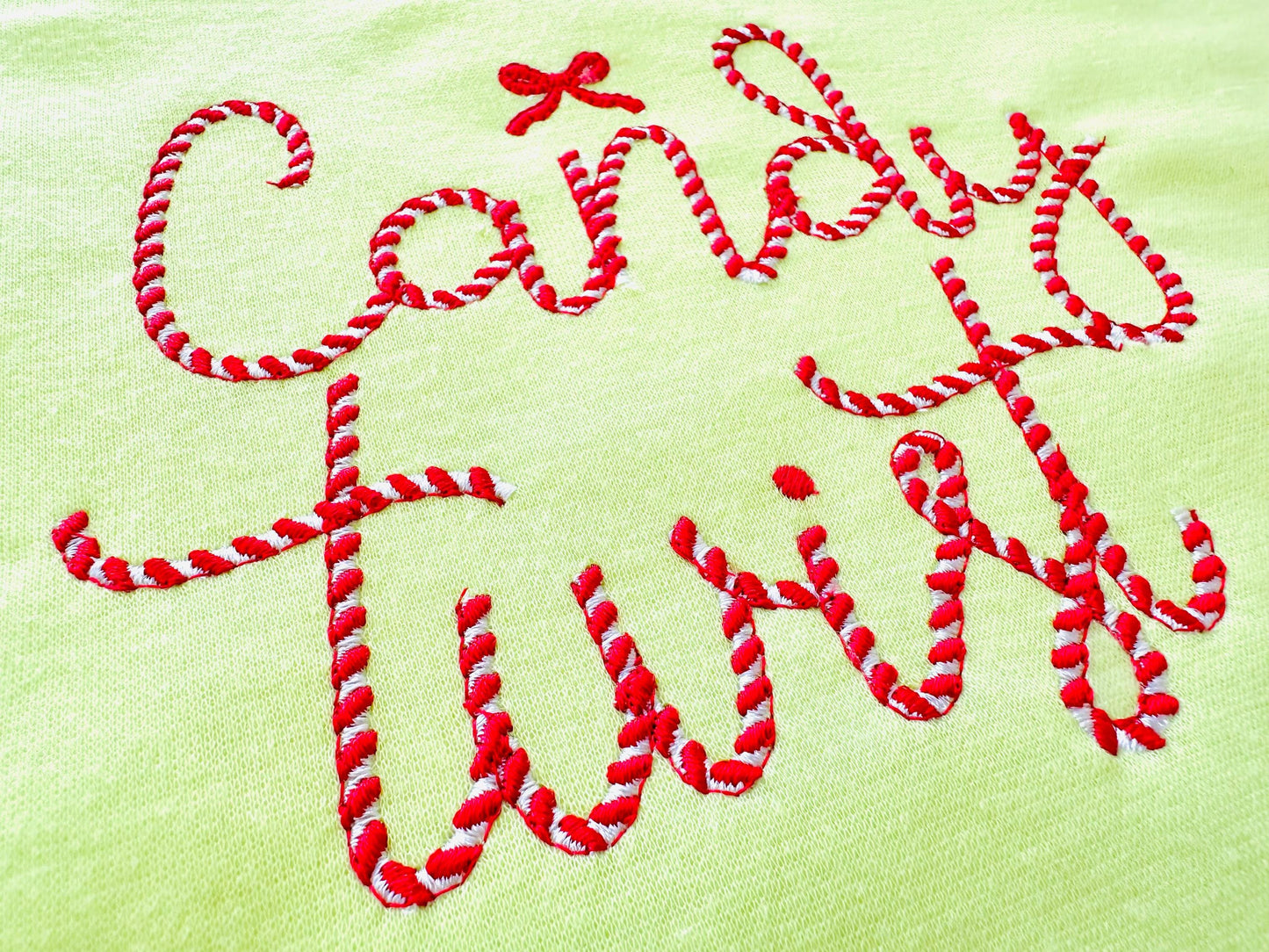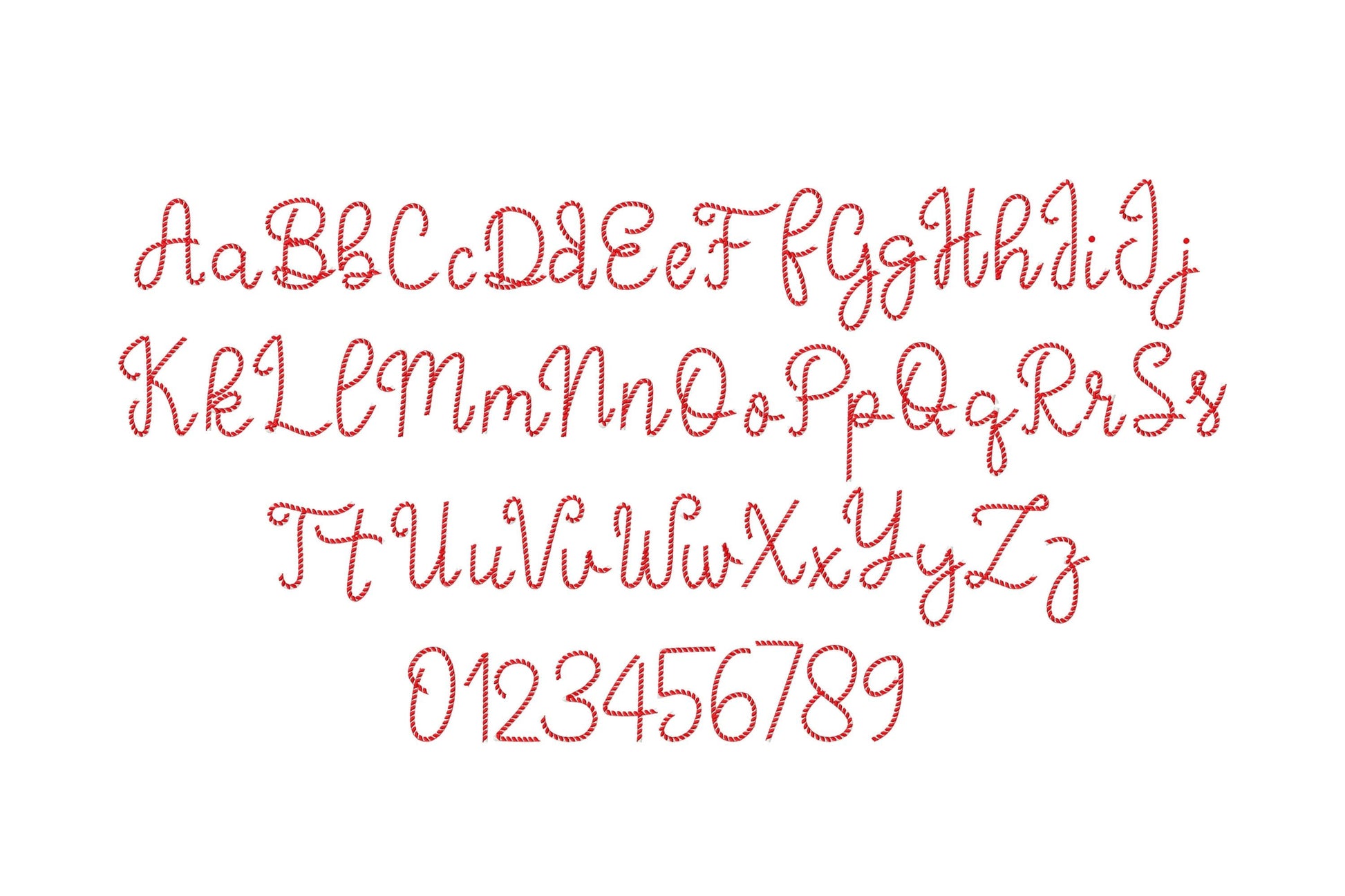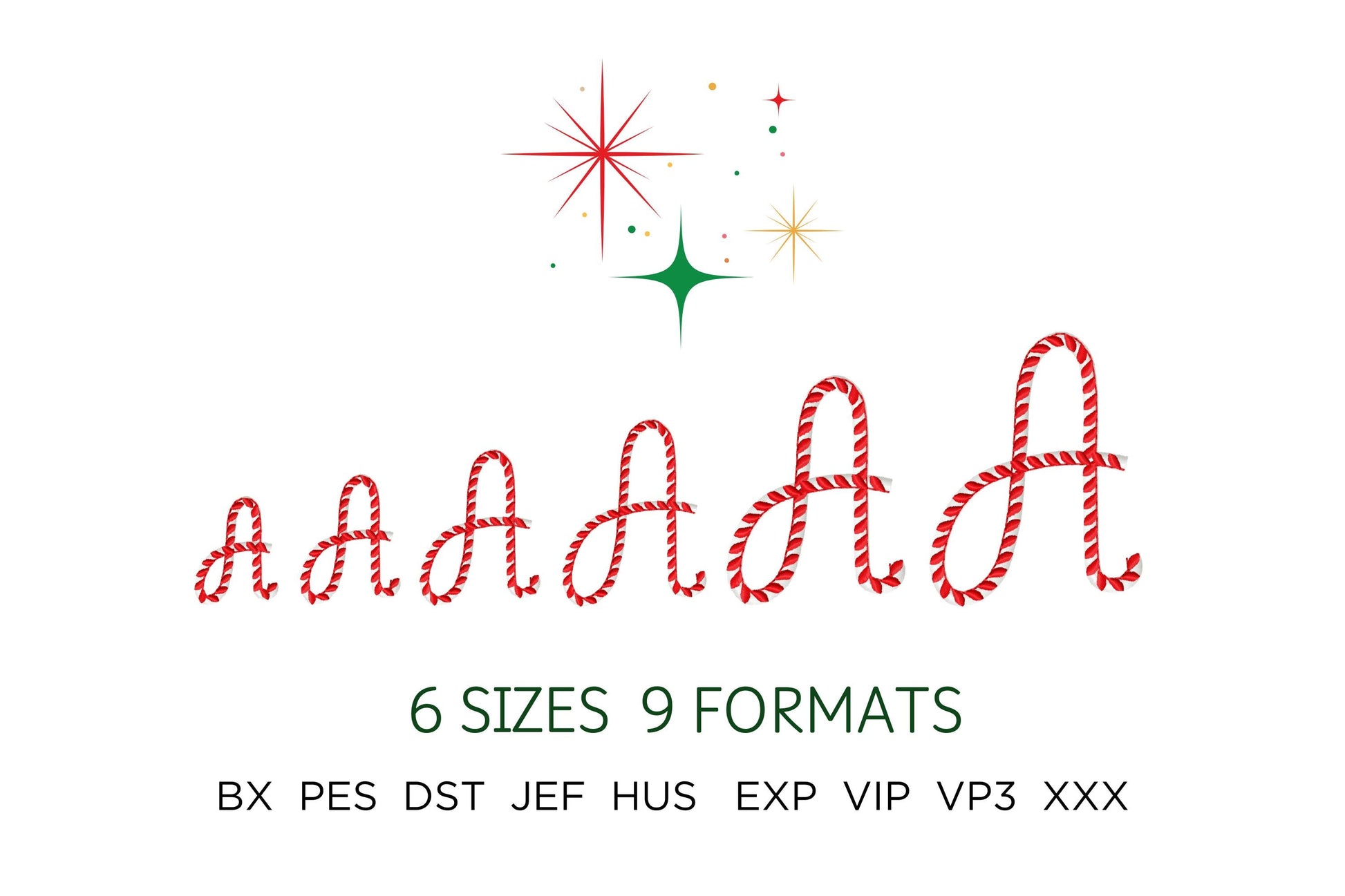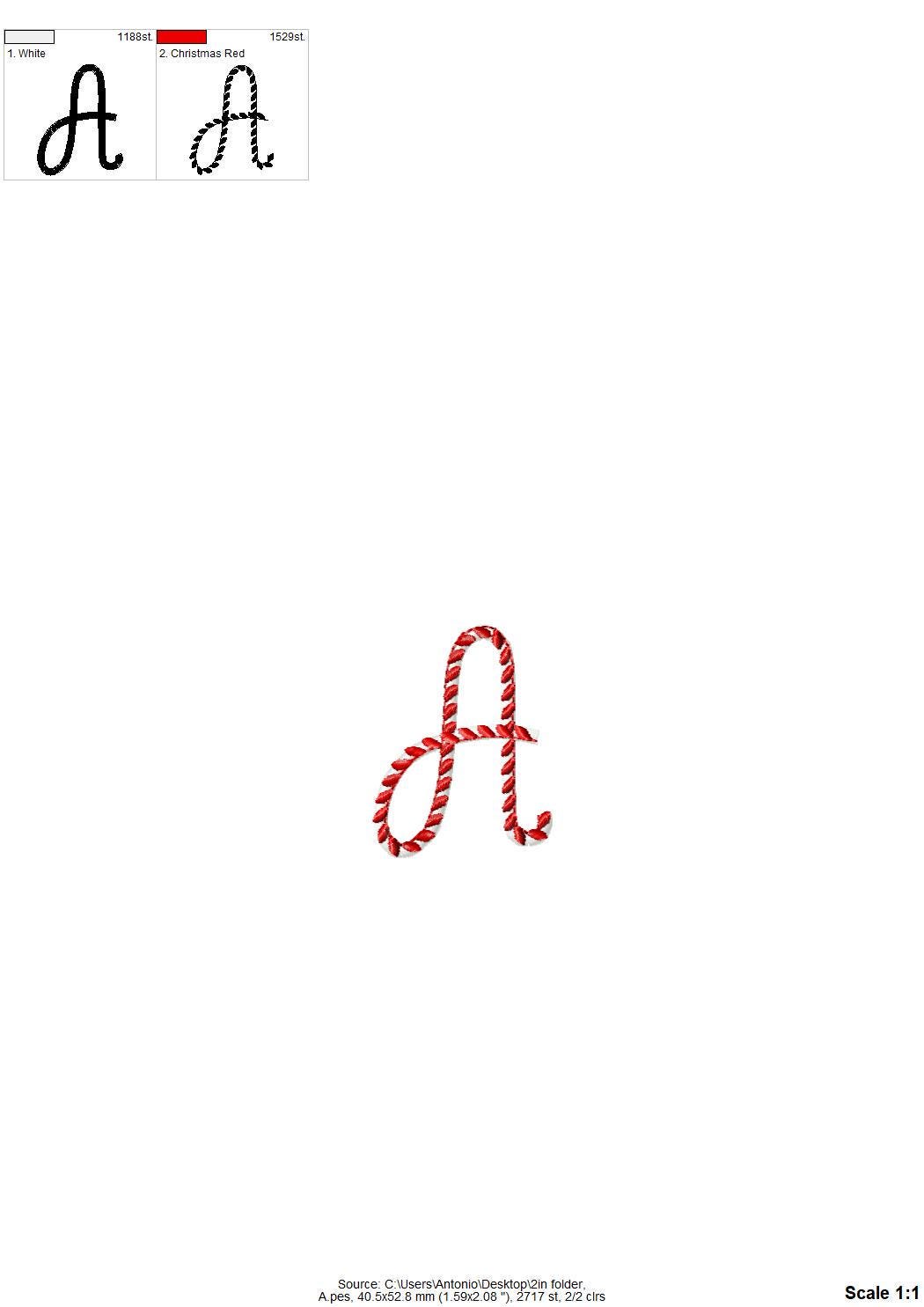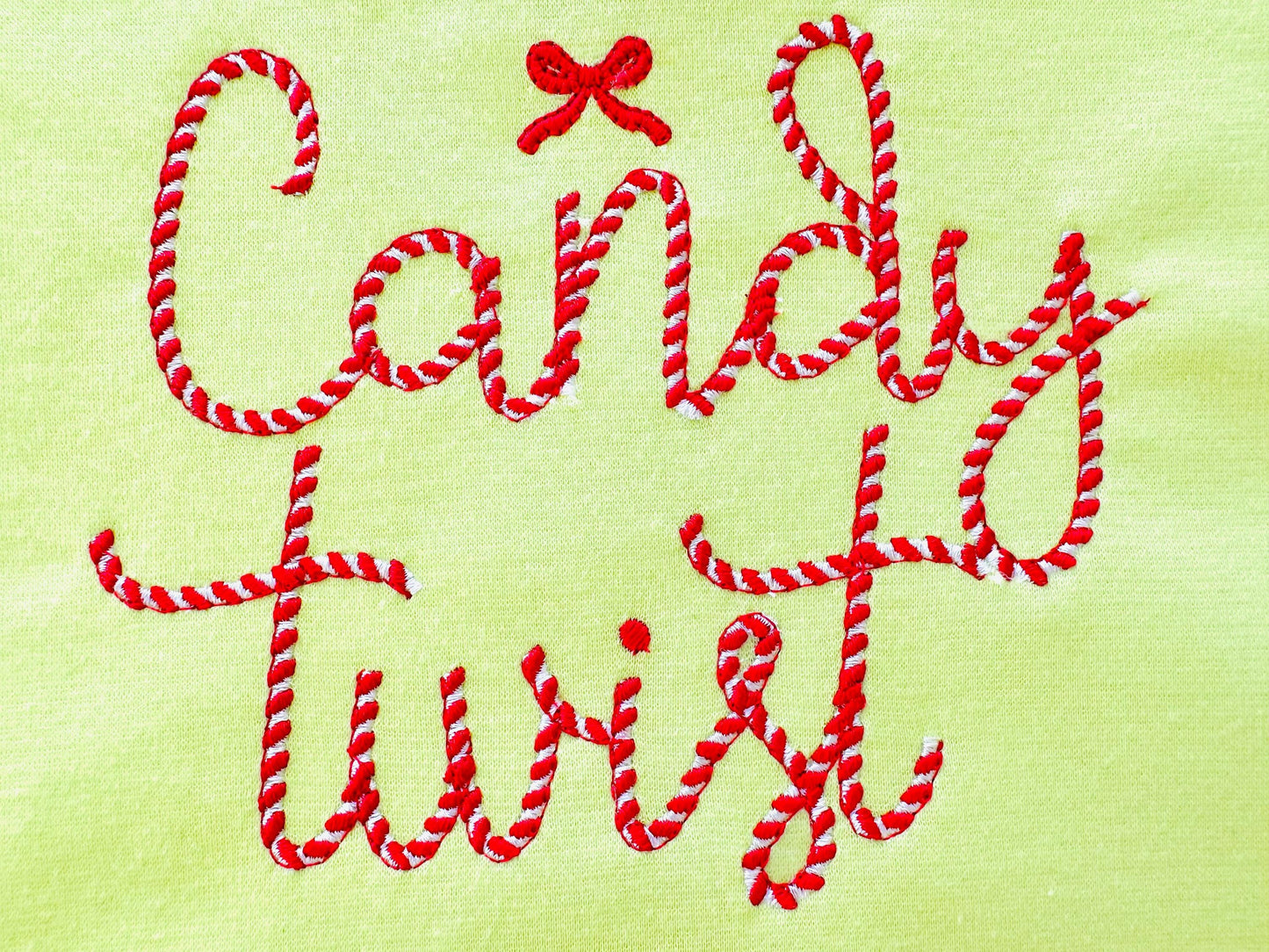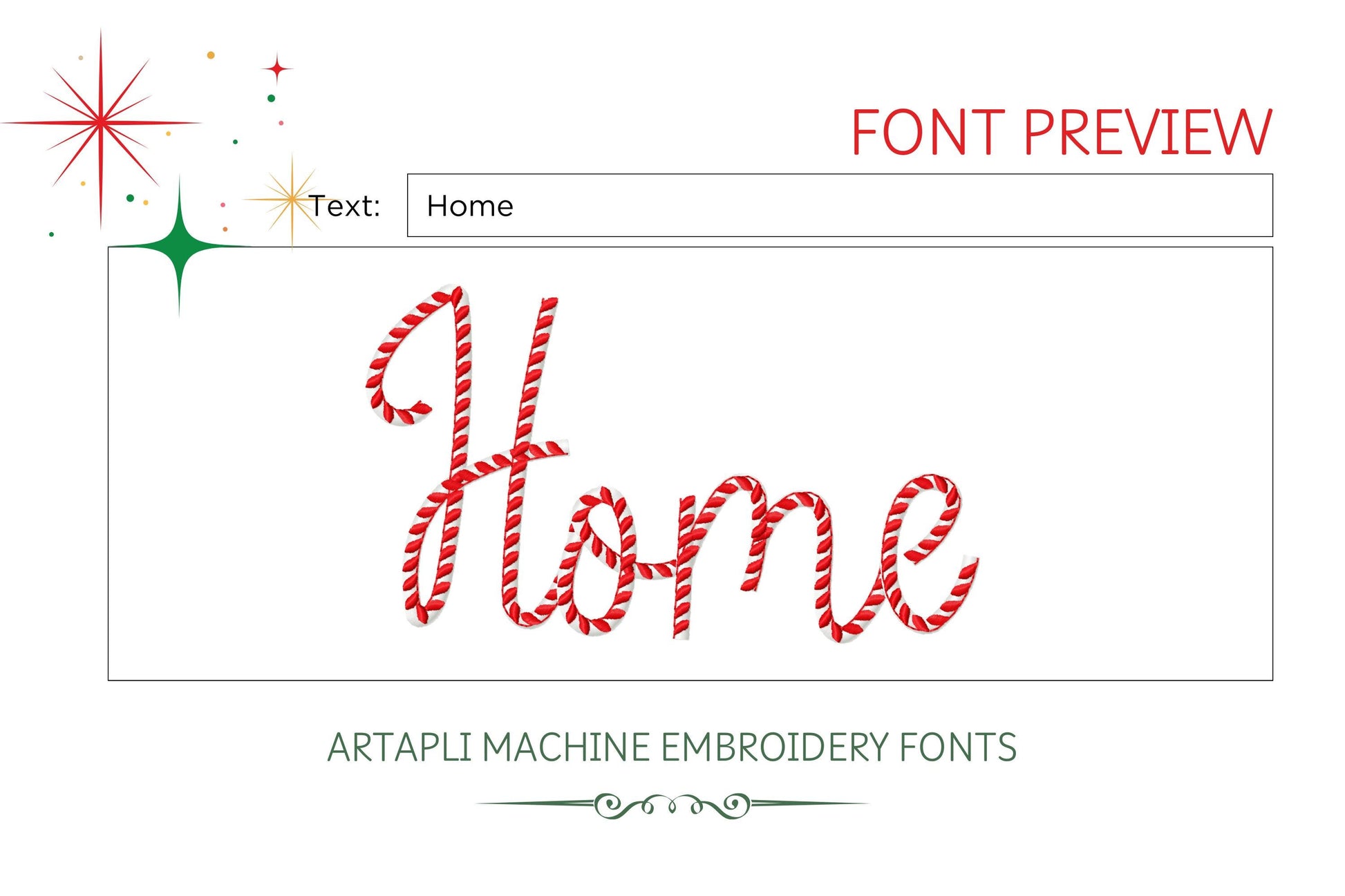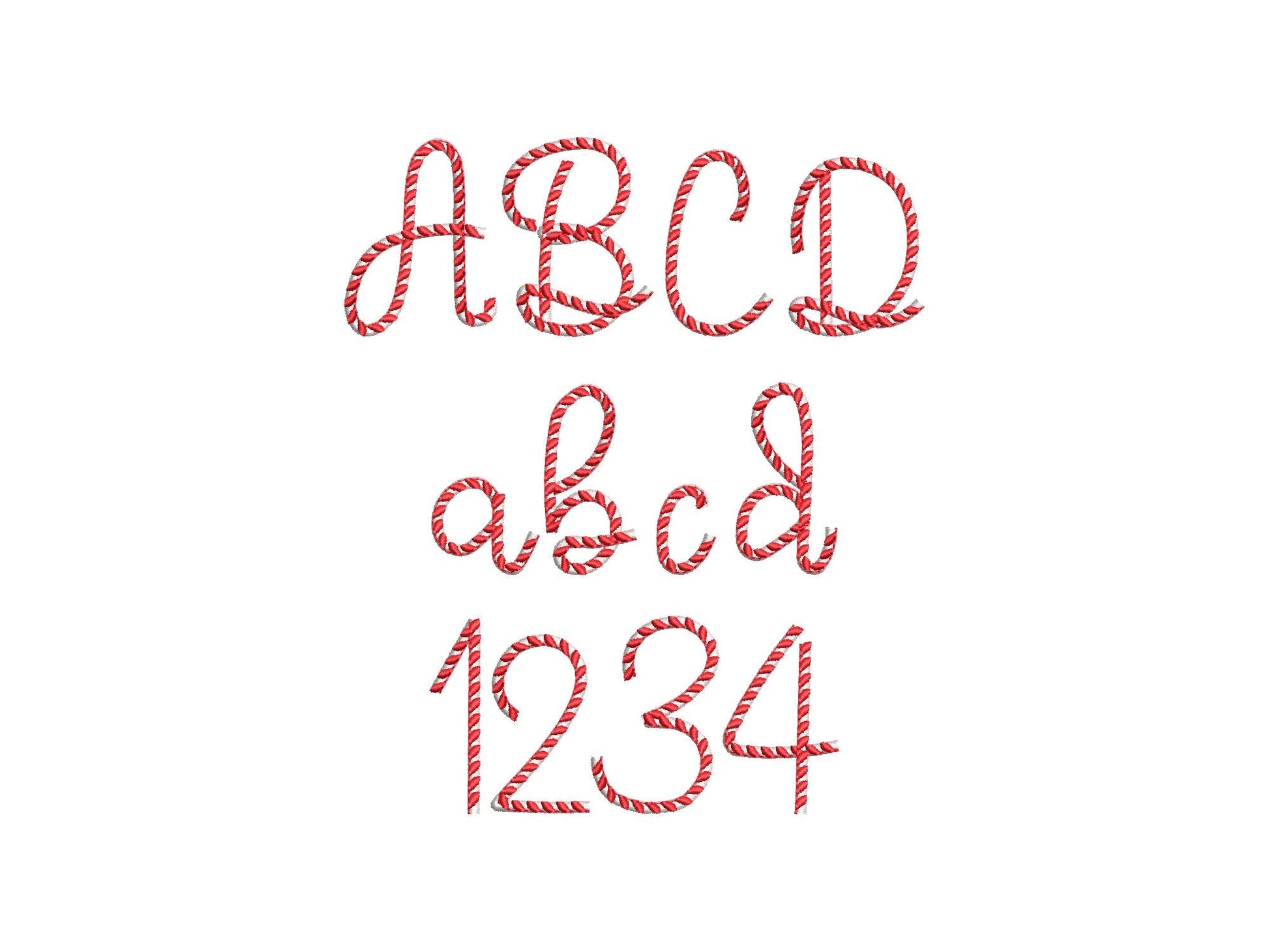
Or click to open the linkA twisted candy cane font in two colors for Christmas stockings, holiday shirts, ornaments and names.
Uppercase and lowercase letters and numbers 0 to 9 in six sizes: 1.4, 1.7, 2, 2.5, 3 and 3.7 inches. Two thread colors twist around each letter like a candy cane.